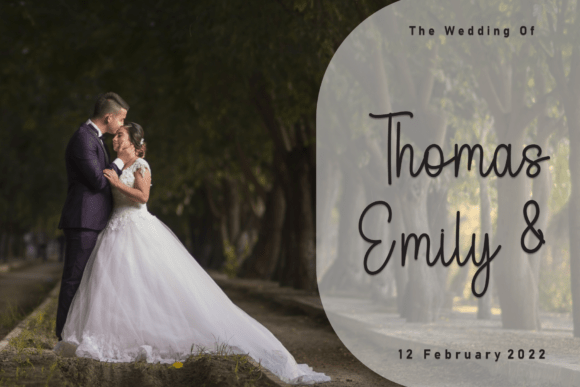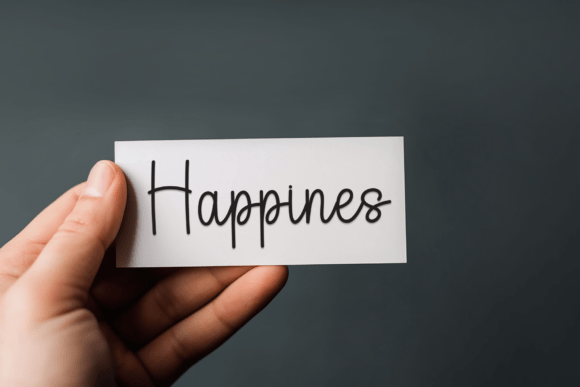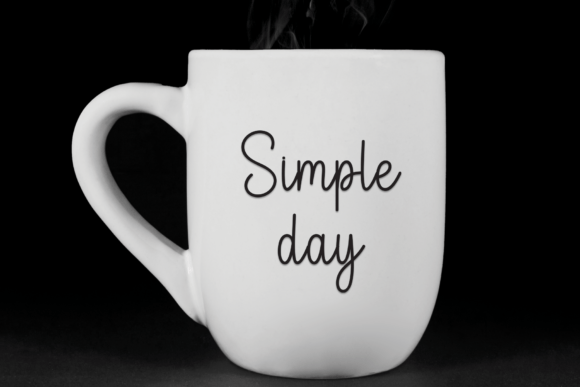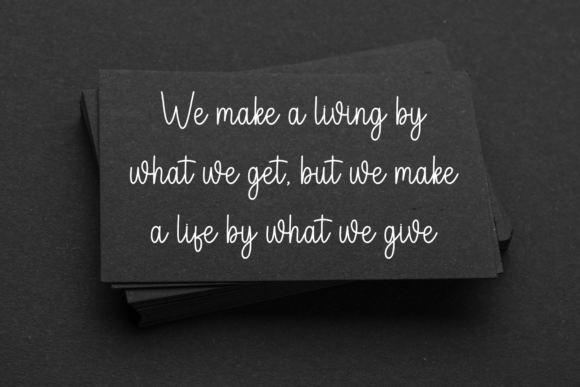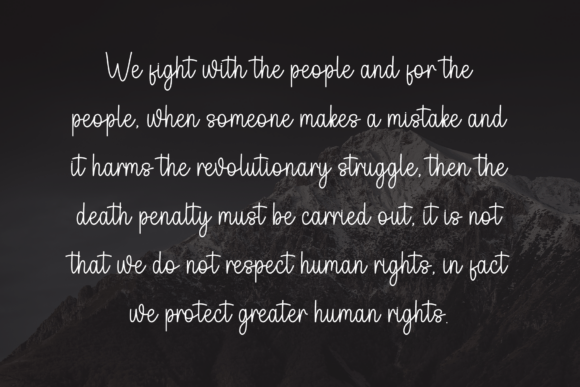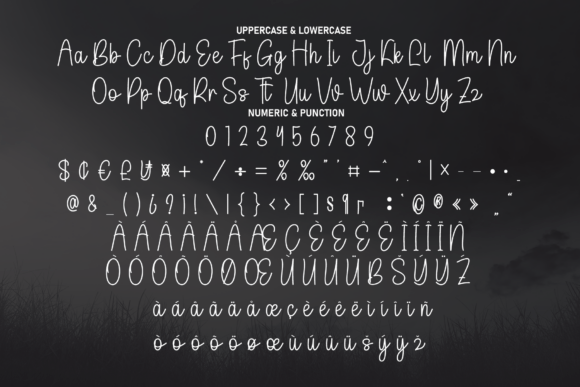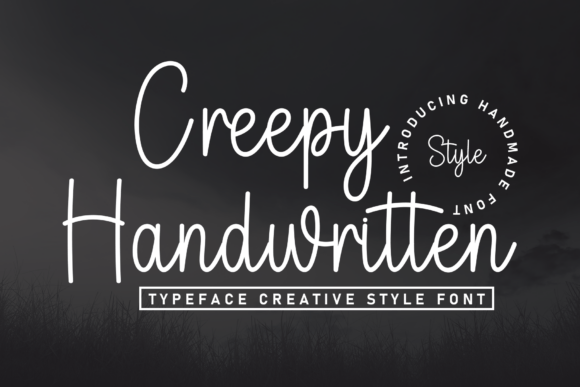
Introducing the Creepy Handwritten Font: Add a Touch of Whimsy to Your Designs
Are you tired of using the same old fonts in your designs? Do you want to add a touch of personality and whimsy to your projects? Look no further than the Creepy Handwritten Font! This charming and personable handwritten display font is perfect for infusing an element of fun and playfulness into any design.
The Perfect Font for Wedding Invites and Cards
The Creepy Handwritten Font possesses an inherently sweet and friendly vibe, making it the ideal choice for wedding invites, cards, and other special occasion designs. Its unique and playful style will add a touch of elegance and sophistication to any project, while also conveying a sense of warmth and friendliness.
Imagine being able to create beautiful and eye-catching wedding invites that set the tone for a joyful and celebratory occasion. With the Creepy Handwritten Font, you can do just that. Its whimsical and romantic style will make your designs stand out from the crowd and leave a lasting impression on your guests.
Unleash Your Creativity with the Creepy Handwritten Font
The Creepy Handwritten Font is not just limited to wedding invites and cards. Its versatility makes it perfect for a wide range of creative projects, from DIY crafts to digital designs. Whether you’re a designer, crafter, or DIY enthusiast, this font is sure to inspire your creativity and take your projects to the next level.
Use the Creepy Handwritten Font to add a touch of personality to your blog posts, social media graphics, and website designs. Its playful and engaging style will help you connect with your audience and make your content more shareable.
Key Features of the Creepy Handwritten Font
- Handwritten style: The Creepy Handwritten Font features a unique and playful handwritten style that’s perfect for adding a touch of whimsy to your designs.
- Sweet and friendly vibe: This font possesses an inherently sweet and friendly vibe that’s perfect for wedding invites, cards, and other special occasion designs.
- Versatile: The Creepy Handwritten Font is versatile and can be used for a wide range of creative projects, from DIY crafts to digital designs.
- Easy to read: Despite its playful style, the Creepy Handwritten Font is easy to read and understand, making it perfect for body text and headlines.
Tips for Using the Creepy Handwritten Font
Here are some tips for using the Creepy Handwritten Font in your designs:
- Use it sparingly: While the Creepy Handwritten Font is perfect for adding a touch of whimsy to your designs, it’s best to use it sparingly. Use it for headlines, titles, or special text to add emphasis and personality.
- Pair it with other fonts: The Creepy Handwritten Font pairs well with other fonts, especially serif and sans-serif fonts. Experiment with different font combinations to find the perfect pairing for your design.
- Experiment with colors: The Creepy Handwritten Font looks great in a variety of colors, from bright and bold to soft and pastel. Experiment with different colors to find the perfect shade for your design.
The Creepy Handwritten Font is a charming and personable handwritten display font that’s perfect for adding a touch of whimsy to any design. Its sweet and friendly vibe makes it ideal for wedding invites, cards, and other special occasion designs. With its versatility and ease of use, this font is sure to inspire your creativity and take your projects to the next level. So why wait? Download the Creepy Handwritten Font today and start creating beautiful and eye-catching designs that will leave a lasting impression on your audience!